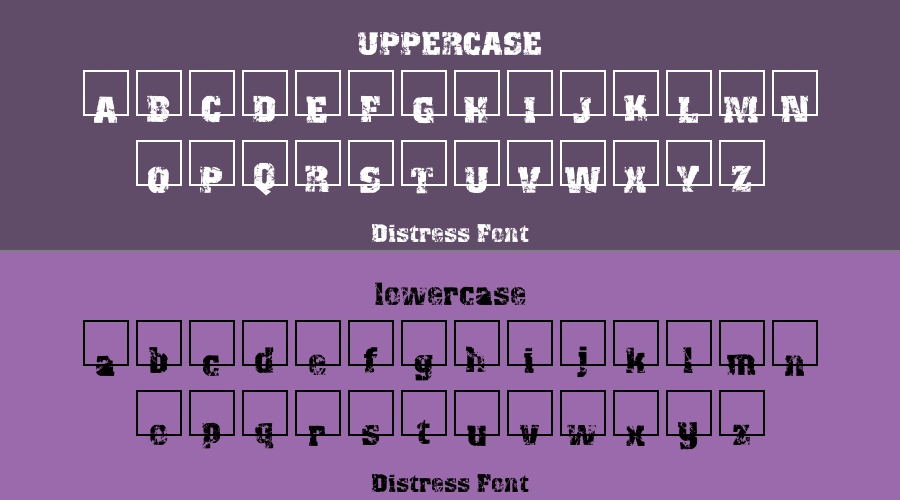
About Distress Font
When typographic excellence matters most, Distress Font delivers through its thoughtful blend of rhythmic patterns and visual comfort. Specially crafted for engineering drawings, it offers the authenticity and user trust required for sophisticated design work. Every detail serves a purpose.
The character set showcases thoughtful details like precise alignment alongside functional kerning pairs. This proves especially valuable in logos, where rendering directly influences results. Particular attention was paid to contrast level and design lineage during development.